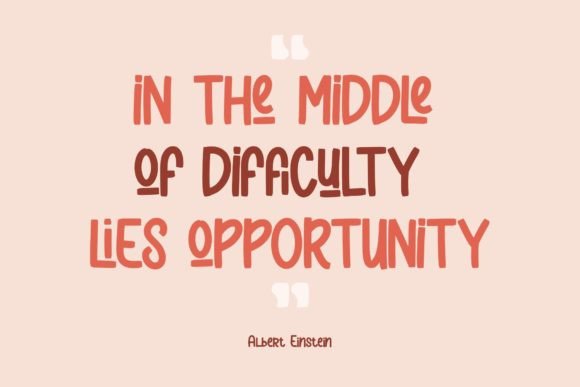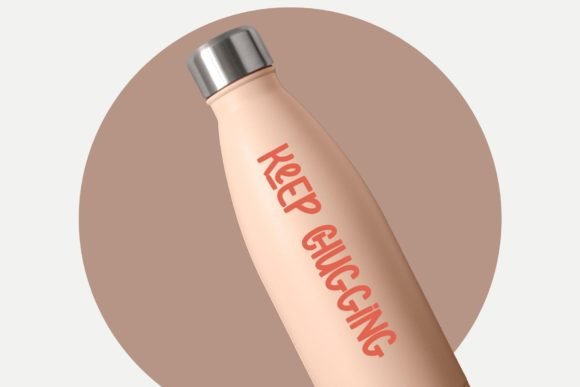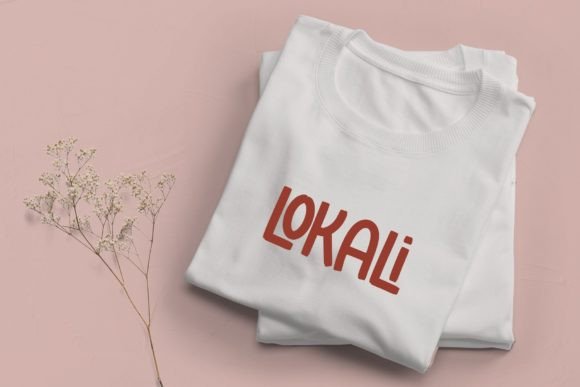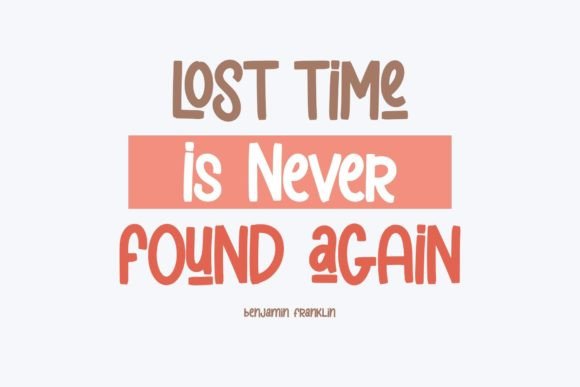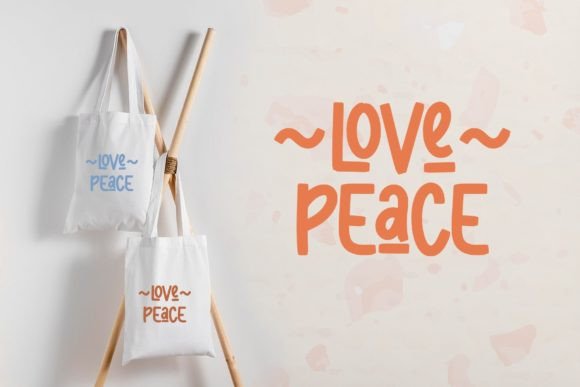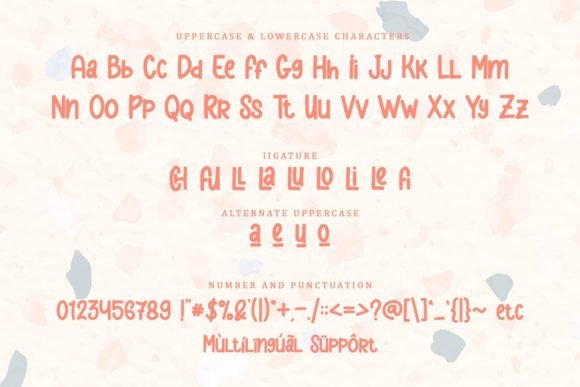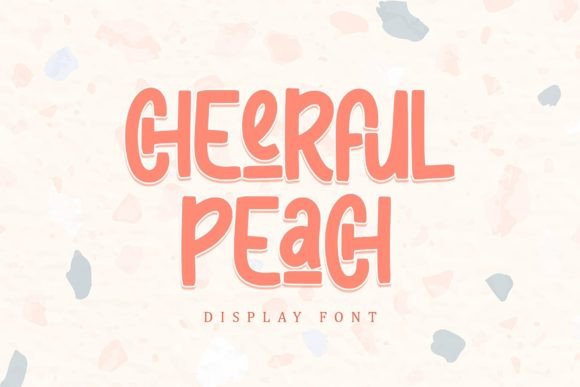
Introducing Cheerful Peach Font: The Ultimate Display Font for Friendly Designs
Are you tired of using the same old fonts for your designs? Look no further! Cheerful Peach Font is here to bring a burst of friendliness and playfulness to your creations. This adorable display font is perfect for designers, crafters, and anyone looking to add a touch of warmth and approachability to their work.
The Perfect Blend of Cute and Playful
Cheerful Peach Font is a unique and charming display font that exudes impeccable friendliness. Its cute and playful design makes it an ideal choice for a wide range of projects, from crafts and digital designs to presentations and greeting cards. Whether you’re creating something for a special occasion or just want to add some personality to your work, this font is sure to become your new go-to.
With Cheerful Peach Font, the possibilities are endless! Designers can use it to create stunning visual content, such as social media graphics, blog posts, and advertisements. Crafters can use it to make personalized gifts, like handmade cards, scrapbook pages, and DIY projects. The font’s versatility and charm make it perfect for:
- Crafts: Add a personal touch to your handmade crafts, such as knitted items, ceramics, and woodwork.
- Digital Design: Use it for social media graphics, blog posts, and website headers.
- Presentations: Make your presentations more engaging and fun with this delightful font.
- Greeting Cards: Create personalized and heartfelt greeting cards for special occasions.
Why Choose Cheerful Peach Font?
So, what sets Cheerful Peach Font apart from other fonts? Here are just a few reasons why designers and crafters love it:
- Unique and Playful Design: Cheerful Peach Font has a one-of-a-kind design that’s sure to grab attention.
- Easy to Read: Despite its playful nature, the font is easy to read, making it perfect for body text and headings.
- Highly Versatile: Use it for a wide range of projects, from digital designs to handmade crafts.
- Impeccable Friendliness: The font conveys a sense of warmth and approachability, making it perfect for designs that require a personal touch.
Tips for Using Cheerful Peach Font
To get the most out of Cheerful Peach Font, here are some tips to keep in mind:
- Pair it with Other Fonts: Combine Cheerful Peach Font with other fonts to create a unique and visually appealing design.
- Experiment with Colors: Try out different colors and color combinations to match your brand or project’s style.
- Use it for Headings and Titles: Cheerful Peach Font is perfect for headings and titles, adding a touch of personality to your designs.